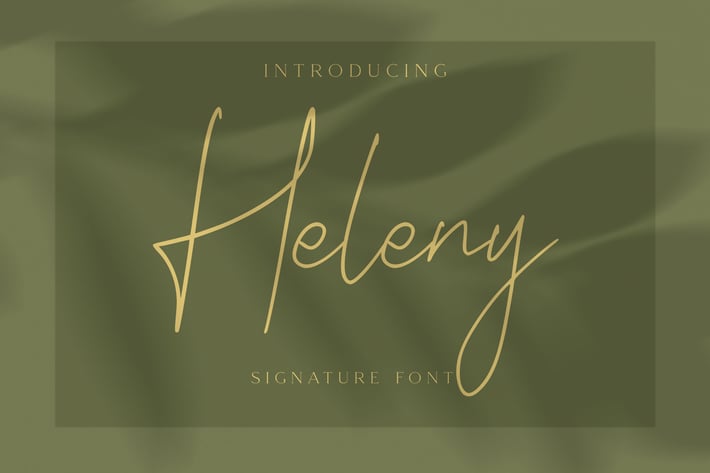
Heleny - Signature Script Font
Introducing New Font : Heleny - Signature Script Font
Heleny - Signature Script Font is an handwritten script font based on the expression of real handwriting. Heleny - Signature Script Font will work perfectly for fashion, e-commerce brands, trend blogs, wedding boutiques or any business that wants to appear upscale and chic.
Heleny - Signature Script Font also Suitable for Logo, greeting cards, quotes, posters, branding, name card, stationary, design title, blog header, art quote, typography, art, modern envelope lettering or book design, happening style like handdrawn design or watercolor design theme, craft design, any DIY project, book title, or any purpose to make your art/design project look pretty and trendy.